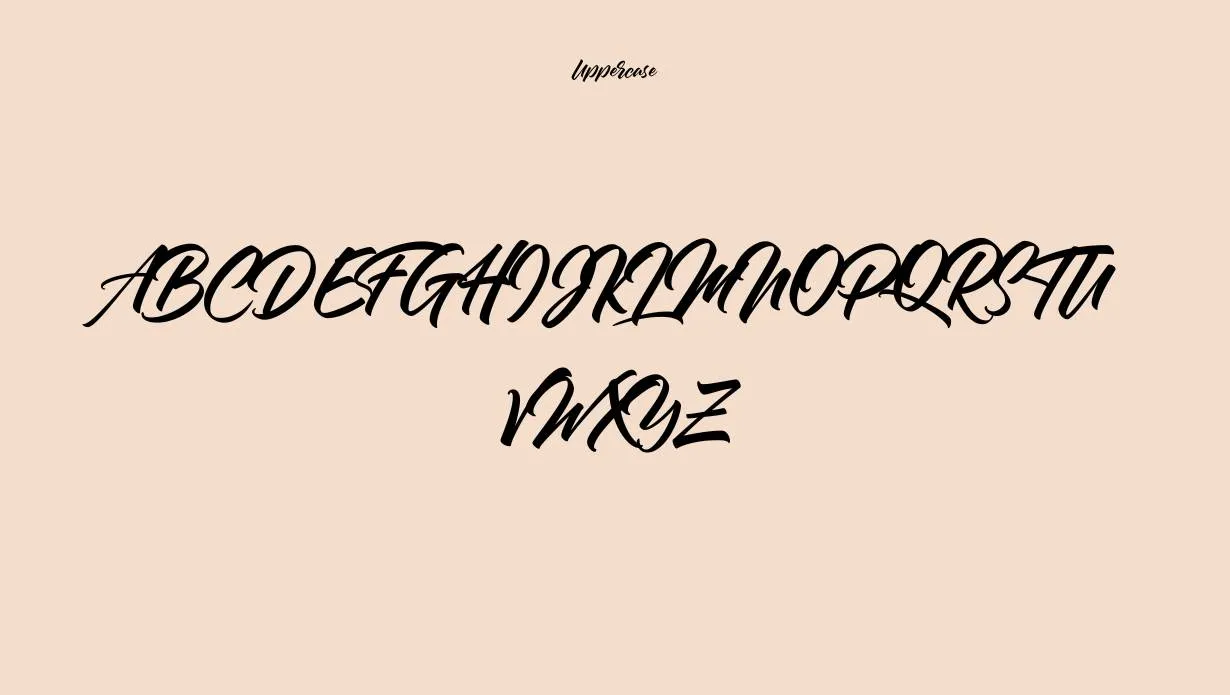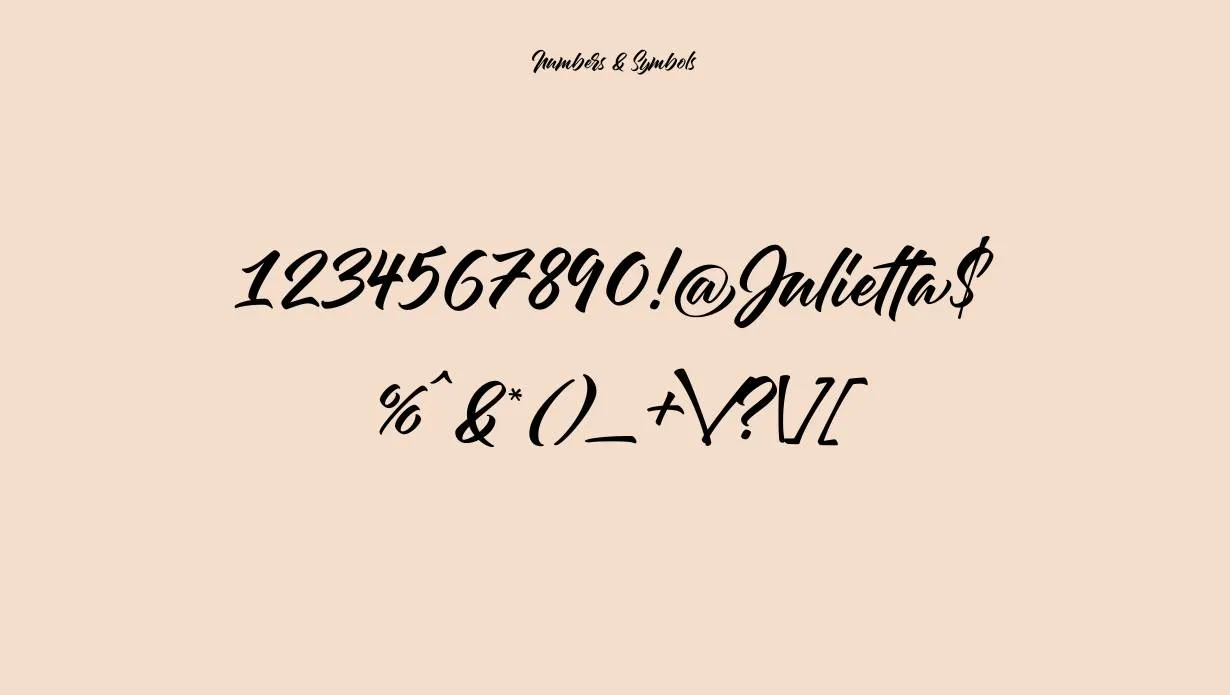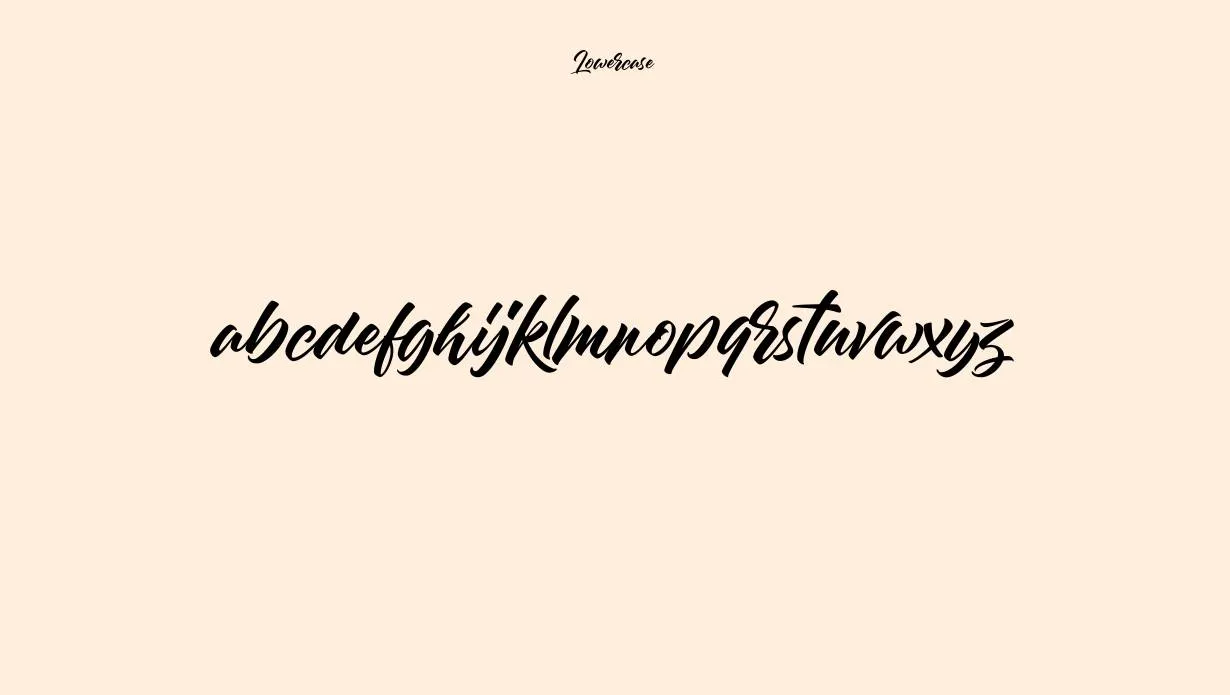
Julietta Font is a calligraphic script font, elegant and artistic. This font belongs to the Calligraphy fonts. It adds a touch of romance and sophistication. Apply it to wedding invitations, branding, and projects that require a handwritten, graceful feel.
Julietta Font Family